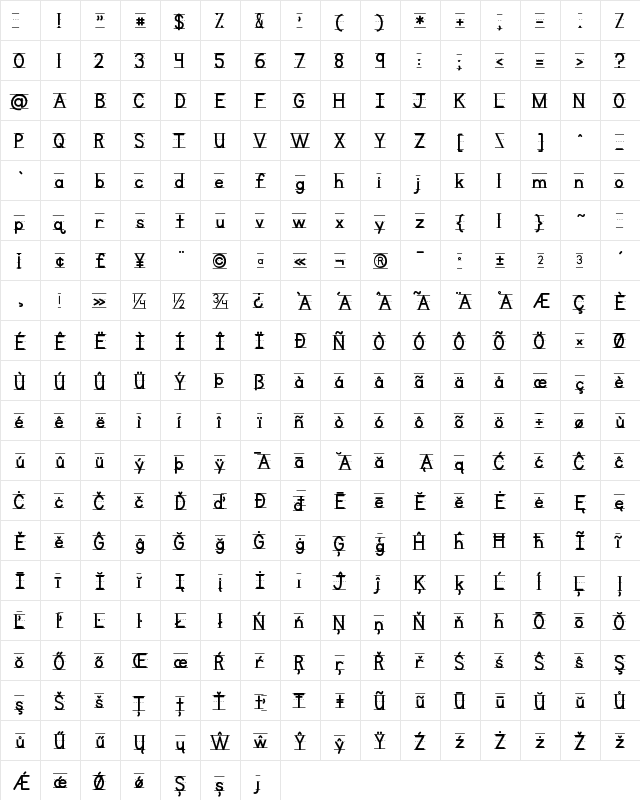
Complete KG Primary Penmanship Lined Regular glyph index. Displaying only characters natively supported by KG Primary Penmanship Lined Regular font.
KG Primary Penmanship Lined is a composed and adaptable typeface that performs quietly and consistently across a wide range of design contexts.